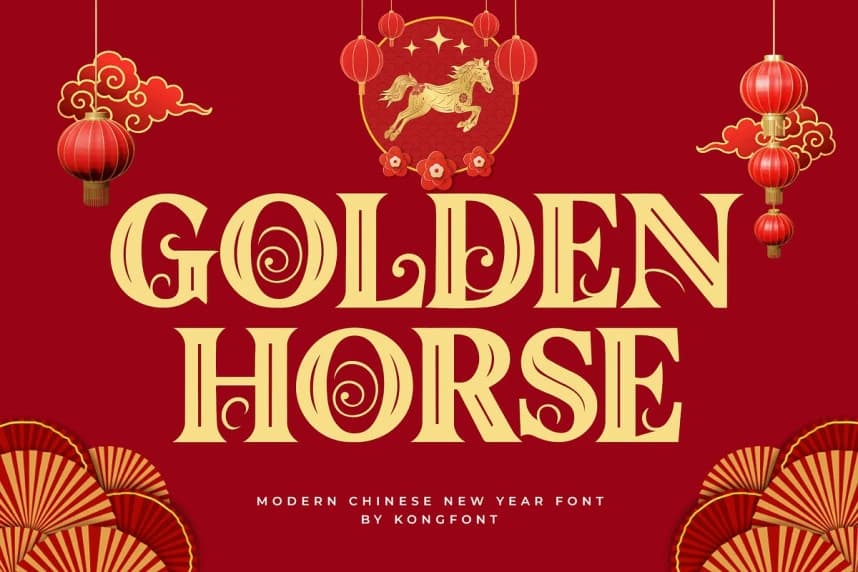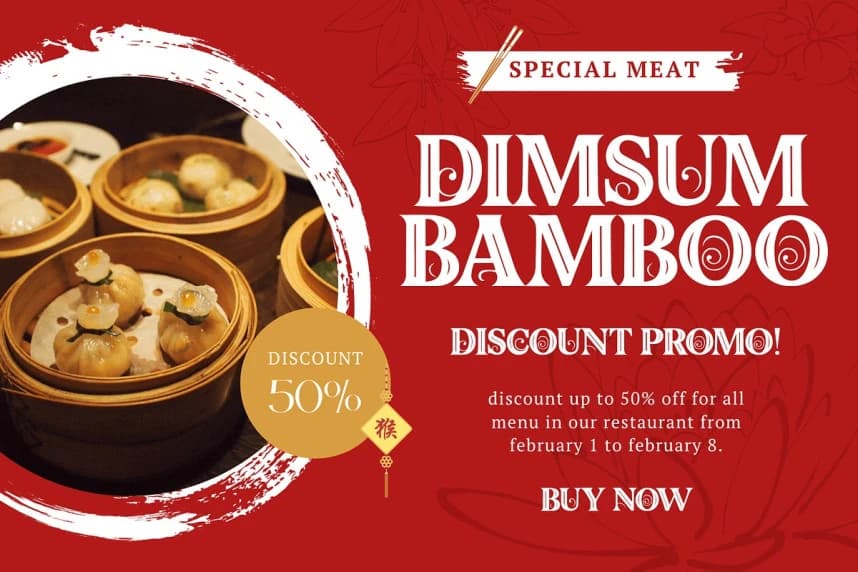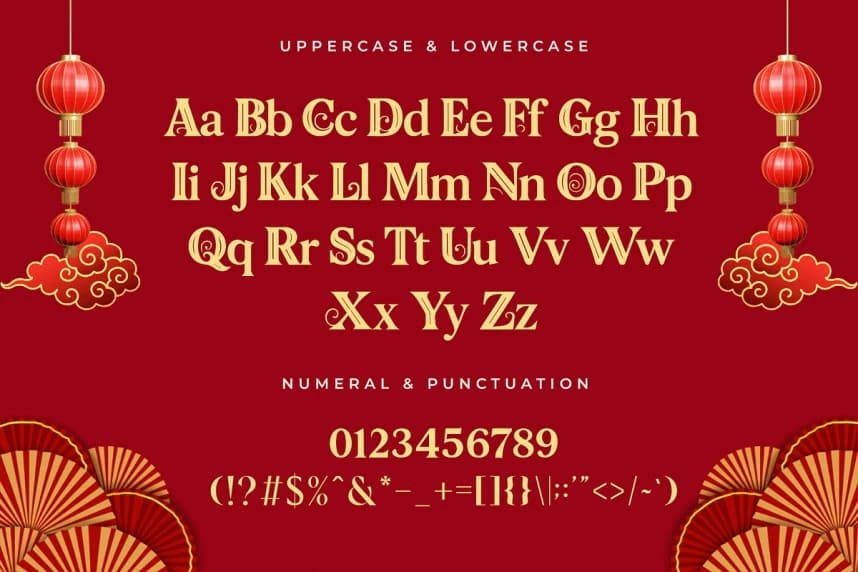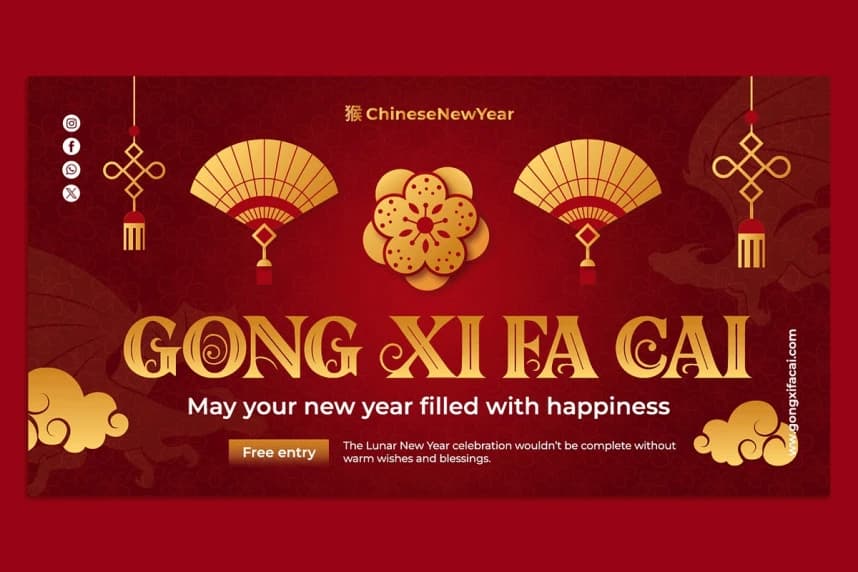
Golden Horse Font
Golden Horse Font, a modern Chinese New Year font designed to bring festive joy and cultural richness into your creative projects. Inspired by the spirit of Lunar New Year celebrations, this typeface combines bold strokes with decorative flair, evoking themes of prosperity, fortune, and celebration.